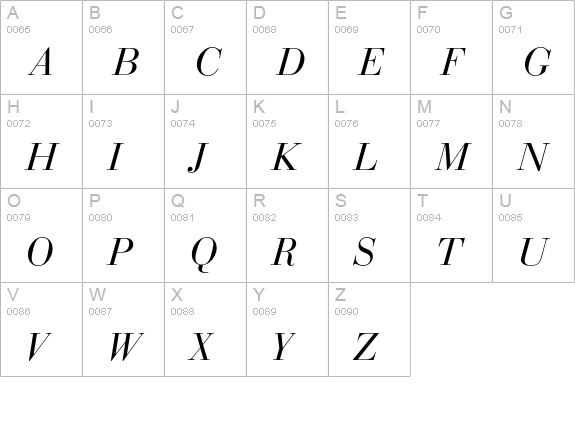
Bauer Bodoni D Regular Italic Font Details
Bauer Bodoni D Regular Italic is the standard, neutral, italic variant in the Bauer typeface family \xE2\x80\x94 well suited to general body text, paragraphs, and standard typographic work.
Bauer Bodoni D Regular Italic is a timeless and elegant font that exudes sophistication and style. Its sleek and graceful curves make it perfect for adding a touch of class to any design project. The italic style adds a sense of movement and dynamism, making it ideal for conveying elegance and refinement. What makes Bauer Bodoni D Regular Italic even more appealing is that it is available for free download at FontsMarket.com. This means that you can easily access this beautiful font and use it in your projects without any cost. Whether you're working on a branding project, a website design, or any other creative endeavor, Bauer Bodoni D Regular Italic is sure to elevate your work with its classic and timeless appeal.